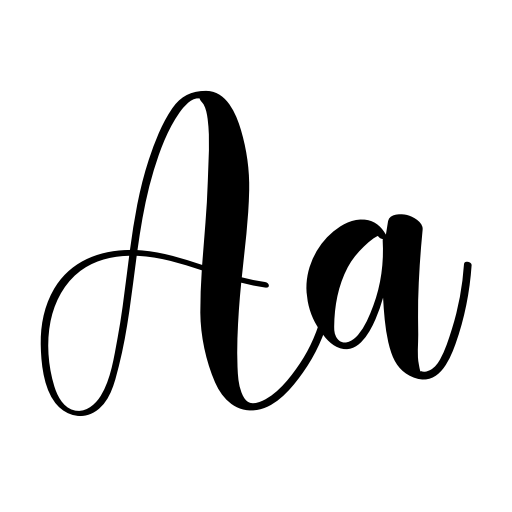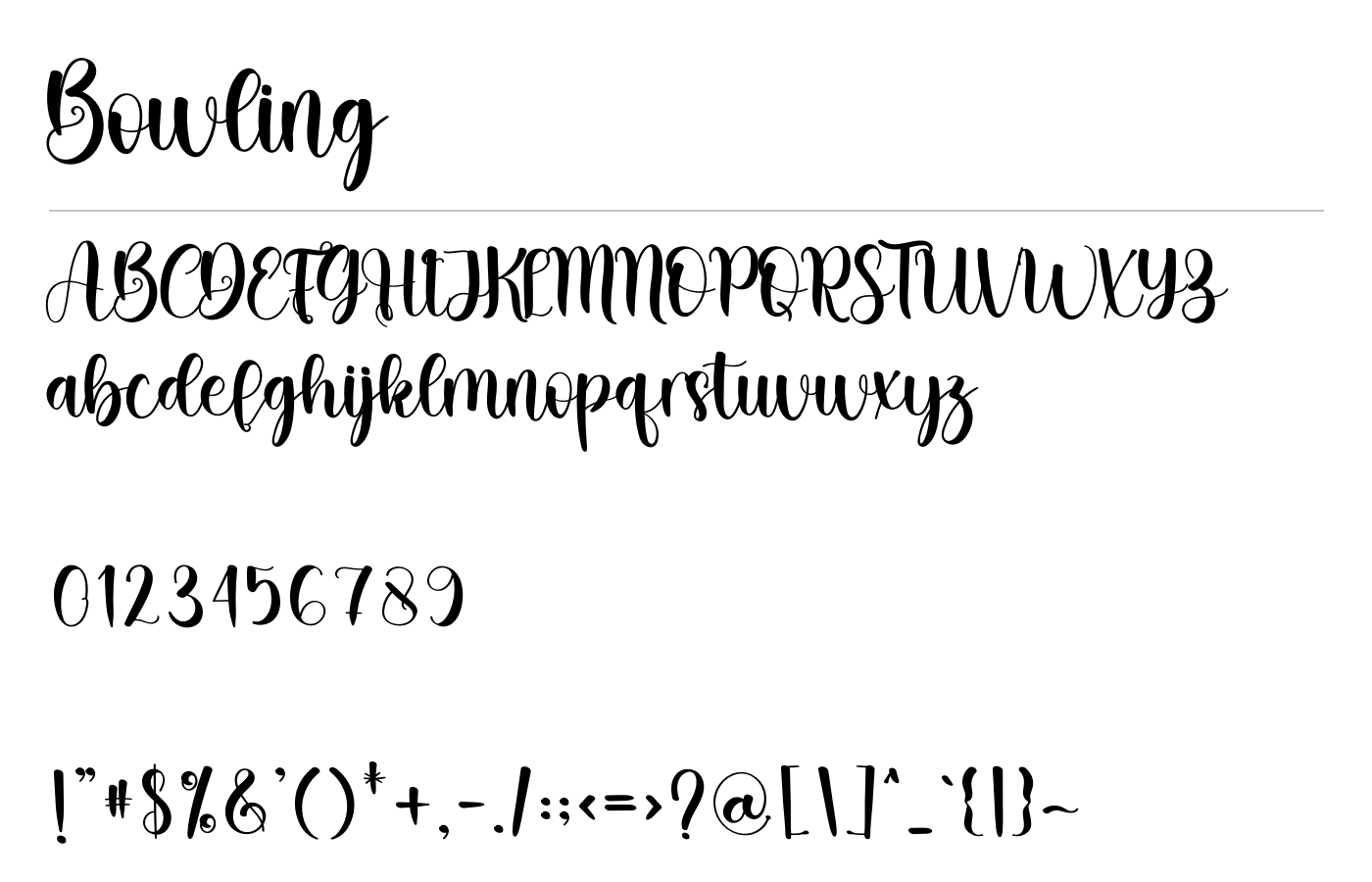
Bowling Font is a stylish script typeface with a playful and elegant flair, featuring smooth, flowing strokes and distinctive swashes that add a lively touch to each letter. Its moderate weight and balanced height make it versatile for creative branding, invitations, or headlines where a friendly yet sophisticated tone is desired. This font shines in designs that seek a personal, handcrafted feel, making it perfect for fashion, craft, or lifestyle presentations.
Bowling Font
About Bowling Font